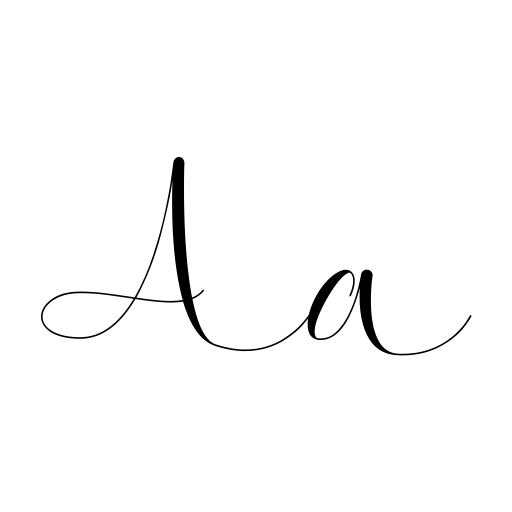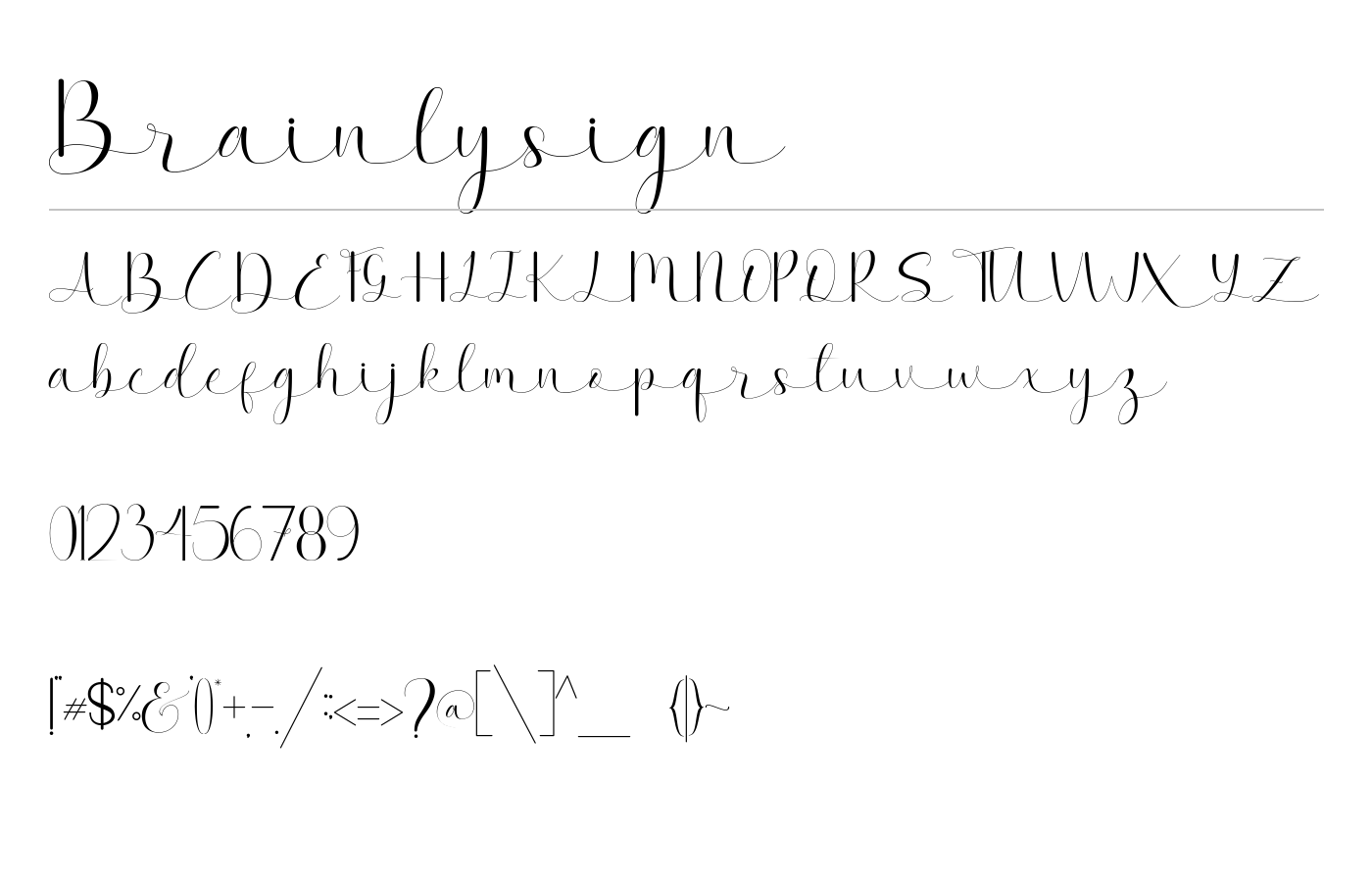
Brainlysign is an elegant, thin script font with delicate, flowing strokes that evoke a graceful and whimsical feel. Its fine lines and decorative swashes make it ideal for sophisticated invitations, branding, and feminine design projects where a touch of artistry and charm is desired. This font works beautifully in contexts requiring a light, airy aesthetic with a personal, hand-crafted look.
Brainlysign Font
About Brainlysign Font
| Font family | Brainlysign Font |